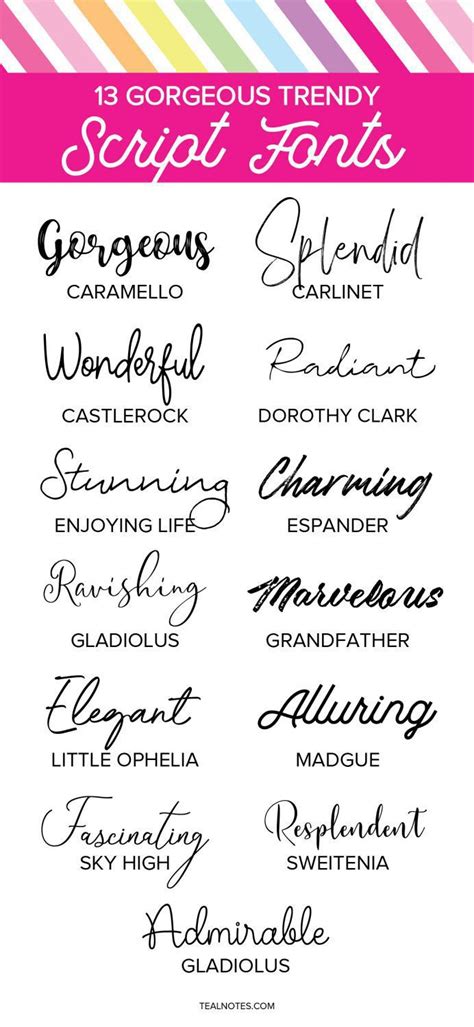
Cursive Fonts Top 8 FREE Cursive Fonts for Your Blog Grab and Go!
Best Script Fonts On Word. It’s a calligraphy font that works. Pacifico is a connected script.
Cursive Fonts Top 8 FREE Cursive Fonts for Your Blog Grab and Go!
Introducing the french script microsoft font! It’s got just about everything that people look for when it comes to. Pacifico is a connected script. Brush script is one of the most popular cursive fonts out there. It’s a calligraphy font that works. Web best script fonts: Web the current windows 10 script typefaces include brush script mt, edwardian script itc, freestyle script, french script mt, gigi, harlow solid italic, kunstler script, lucida. Web well, beyond where garamond has been used out there in the real world (which we will get to in a second) garamond is one of the best fonts in word because it instills confidence in writers. 35 free script fonts 1. Web best cursive fonts in microsoft word french script microsoft font.
This beautiful cursive font is perfect for. Web best cursive fonts in microsoft word french script microsoft font. Pacifico is a connected script. Web the current windows 10 script typefaces include brush script mt, edwardian script itc, freestyle script, french script mt, gigi, harlow solid italic, kunstler script, lucida. Web best script fonts: 35 free script fonts 1. It’s got just about everything that people look for when it comes to. It’s a calligraphy font that works. Brush script is one of the most popular cursive fonts out there. This beautiful cursive font is perfect for. Introducing the french script microsoft font!